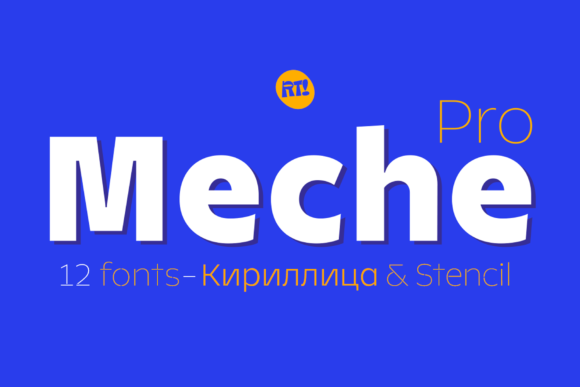
Unleash the captivating allure of Meche Pro, a geometric typeface that exudes a touch of semi-formal elegance. Designed by the maestro of typography, Rodrigo Typo, this font is a symphony of sharp lines and graceful curves, meticulously crafted to command attention on any digital display.
Immerse yourself in the world of Meche Pro, where every letterform is a testament to precision and artistry. The bold strokes and clean angles create a visual feast that dances before your eyes, captivating your audience and leaving them spellbound. With its inherent versatility, Meche Pro seamlessly adapts to a myriad of projects, from sleek logos and eye-catching posters to dynamic social media graphics and captivating website designs.
Meche Pro is not merely a font; it's an experience. Its semi-formal demeanor lends an air of sophistication and authority, while its geometric structure exudes a sense of modernity and innovation. Whether you're a seasoned designer seeking creative inspiration or a novice seeking to make a bold statement, Meche Pro is your ultimate font companion.
Step into the spotlight with Meche Pro, the font that transforms your creative visions into reality. Let your imagination soar as you craft captivating designs that leave a lasting impression. Elevate your projects to new heights with Meche Pro, the font that sets you apart from the ordinary and propels you into the realm of the extraordinary.